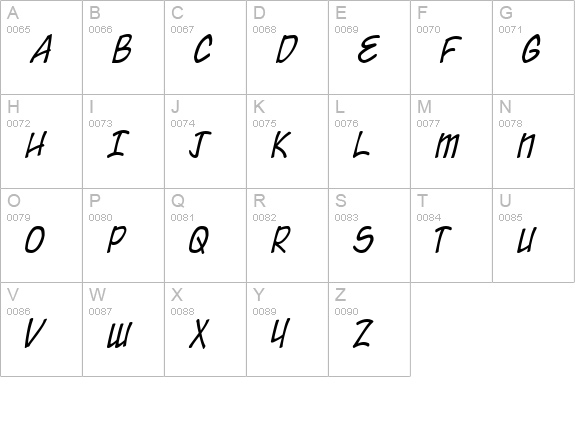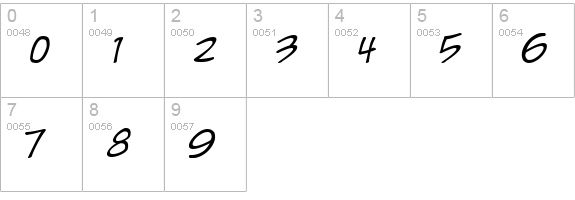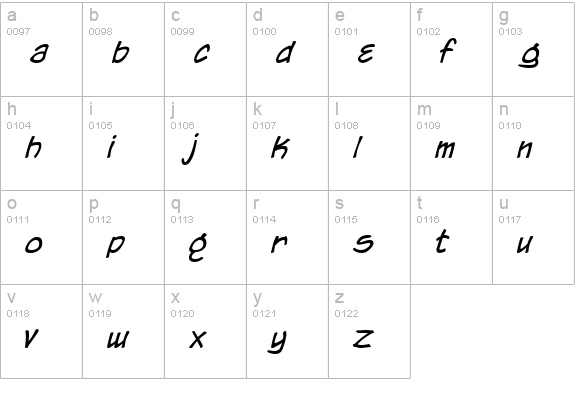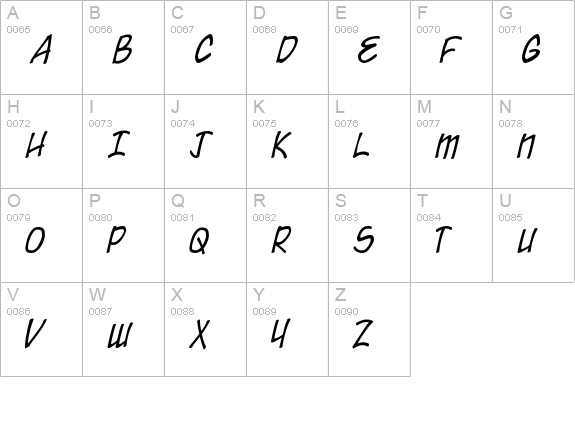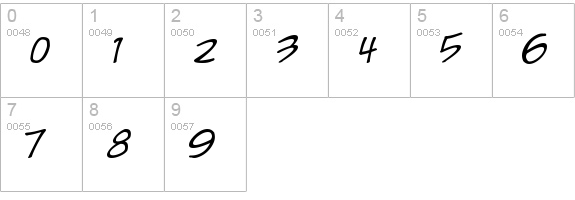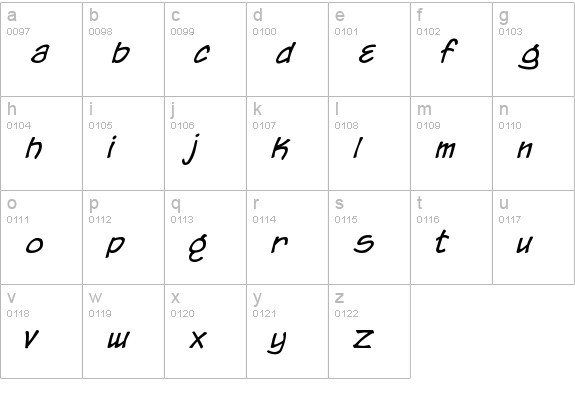
Chronicles of a Hero Font Details
Chronicles of a Hero font is a captivating and versatile typeface that adds a touch of magic to any design project. With its elegant curves and bold lines, this font exudes a sense of adventure and heroism. Whether you're working on a fantasy novel cover, a role-playing game logo, or a movie poster, Chronicles of a Hero font will elevate your design to epic proportions. The best part? Chronicles of a Hero font is completely free to download at FontsMarket.com. Now you can bring the power and mystique of this remarkable font to your projects without breaking the bank. Don't miss out on the opportunity to add a touch of heroism to your designs with this stunning font. Download Chronicles of a Hero font today and let your creativity soar to new heights.